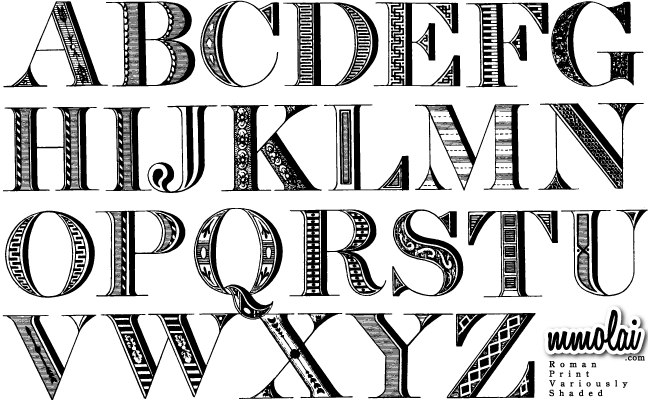
The extinct typeface "Roman Print Variously Shaded" (c.1800)I found this in an old typeface book and scanned it 1200dpi. I have also created along with it several duplicates/alternates;
three "B's", three "C's", five "E's", five "F's", four "H's", seven "I's", two "M's", three "P's" and three "R's".